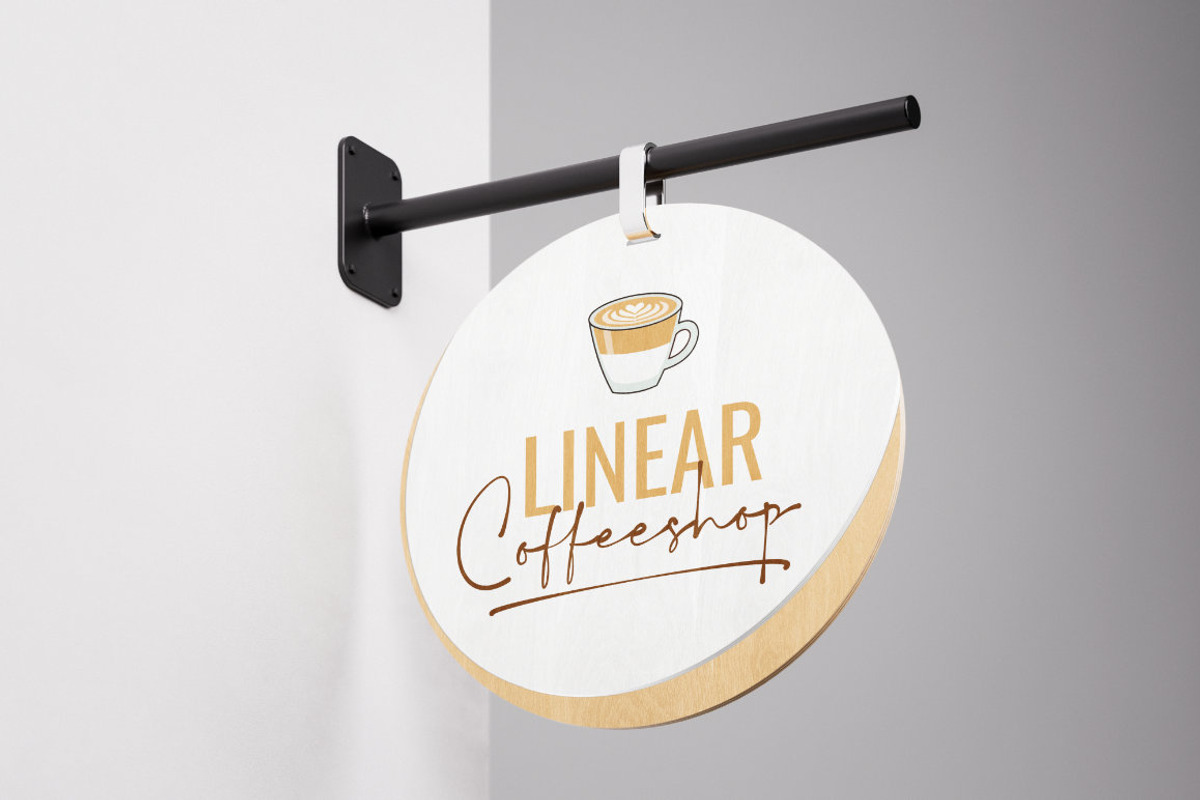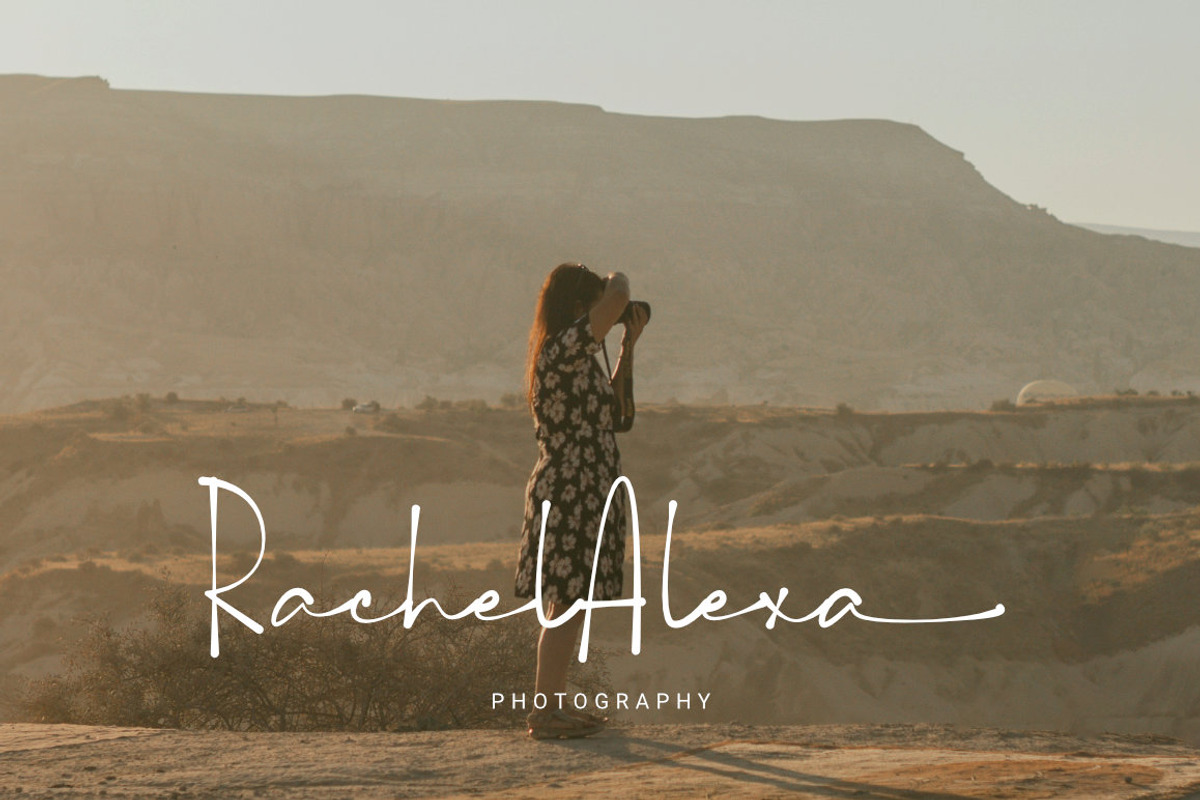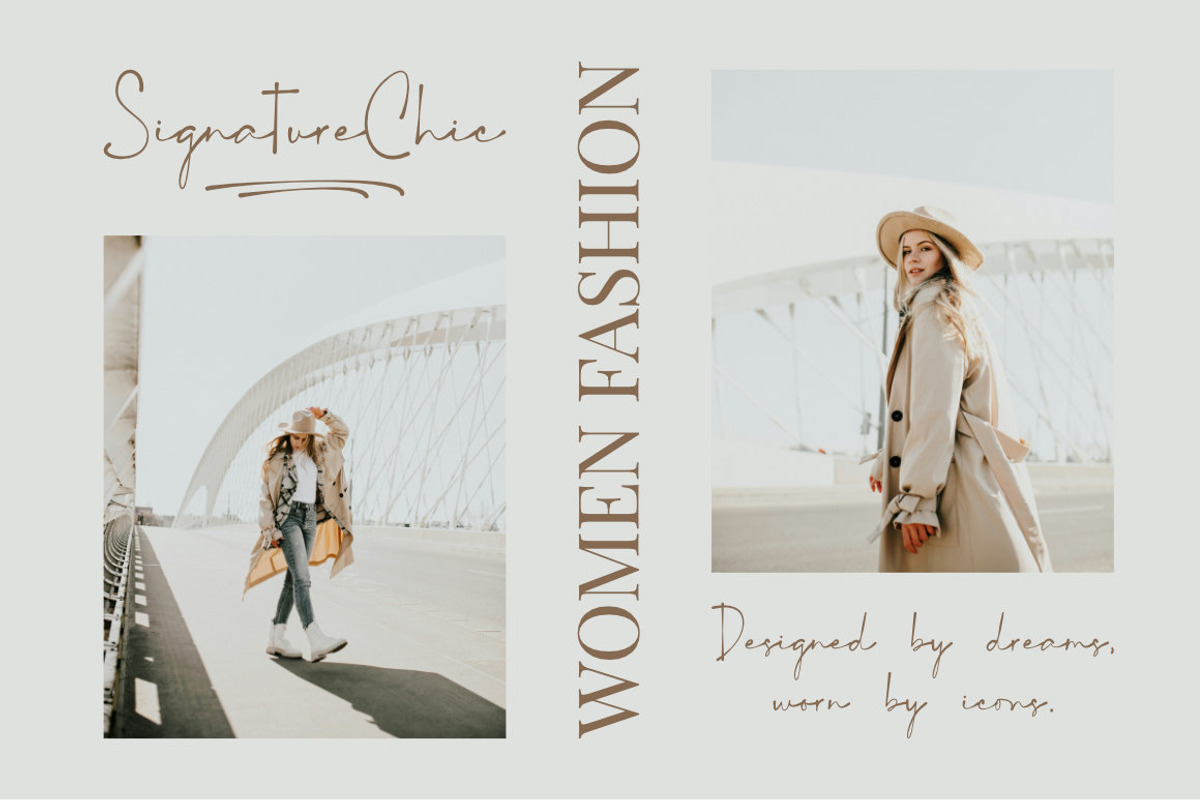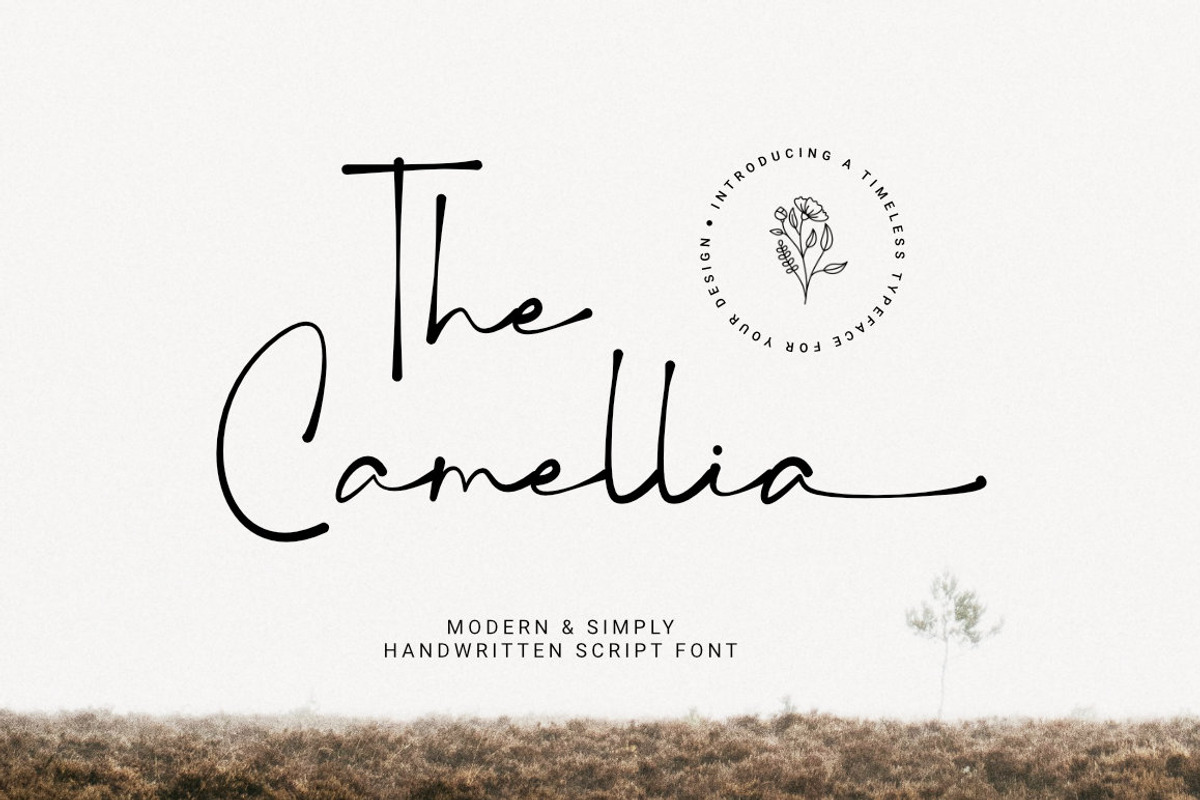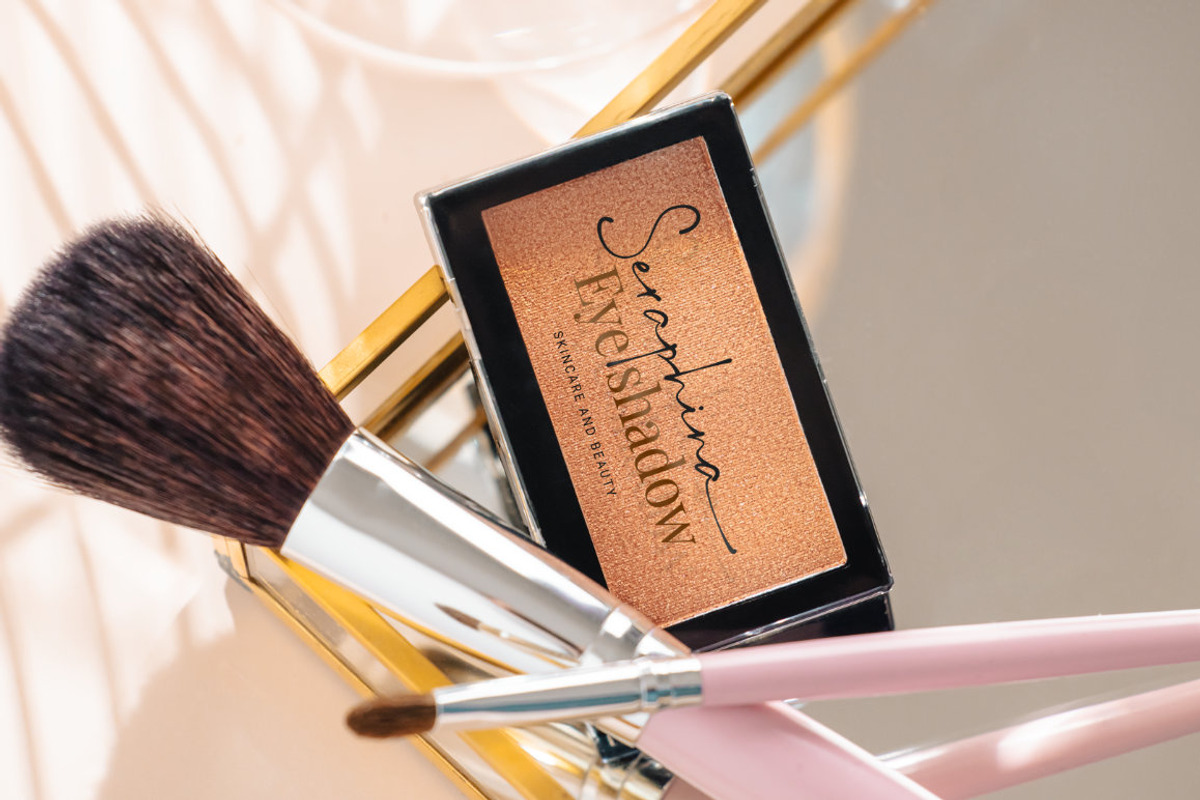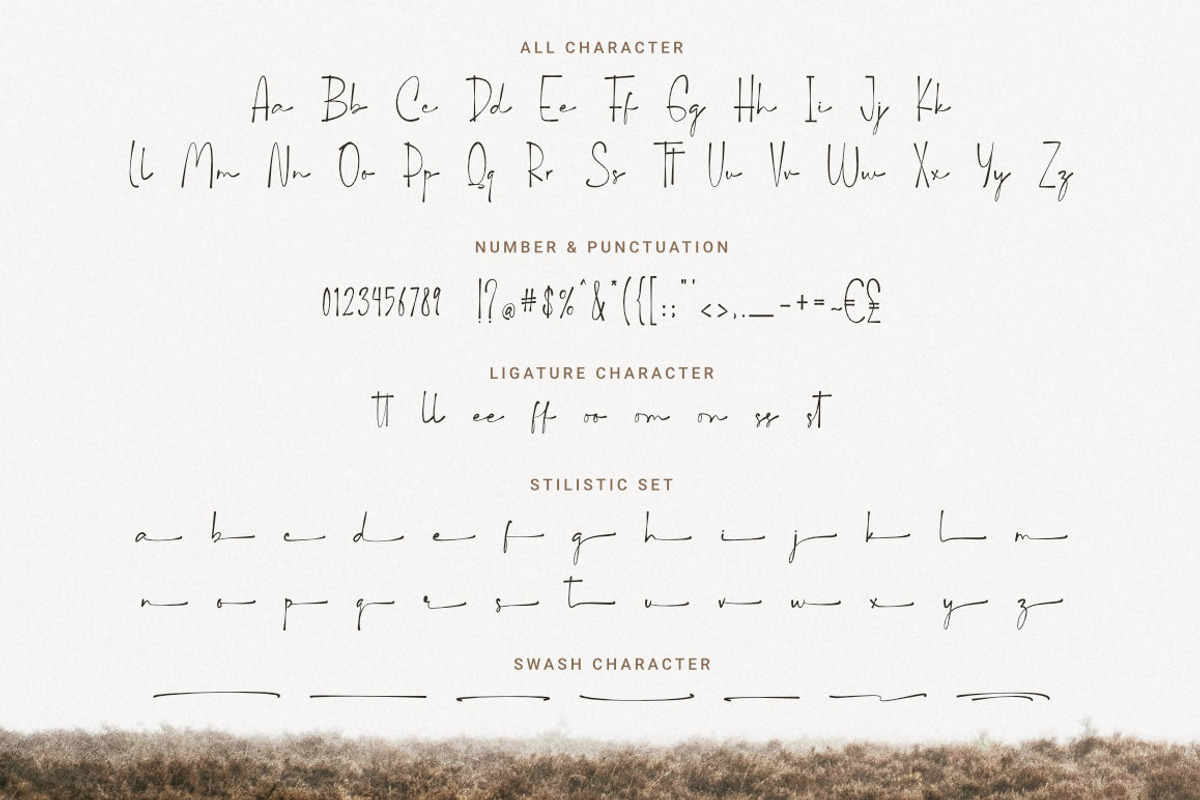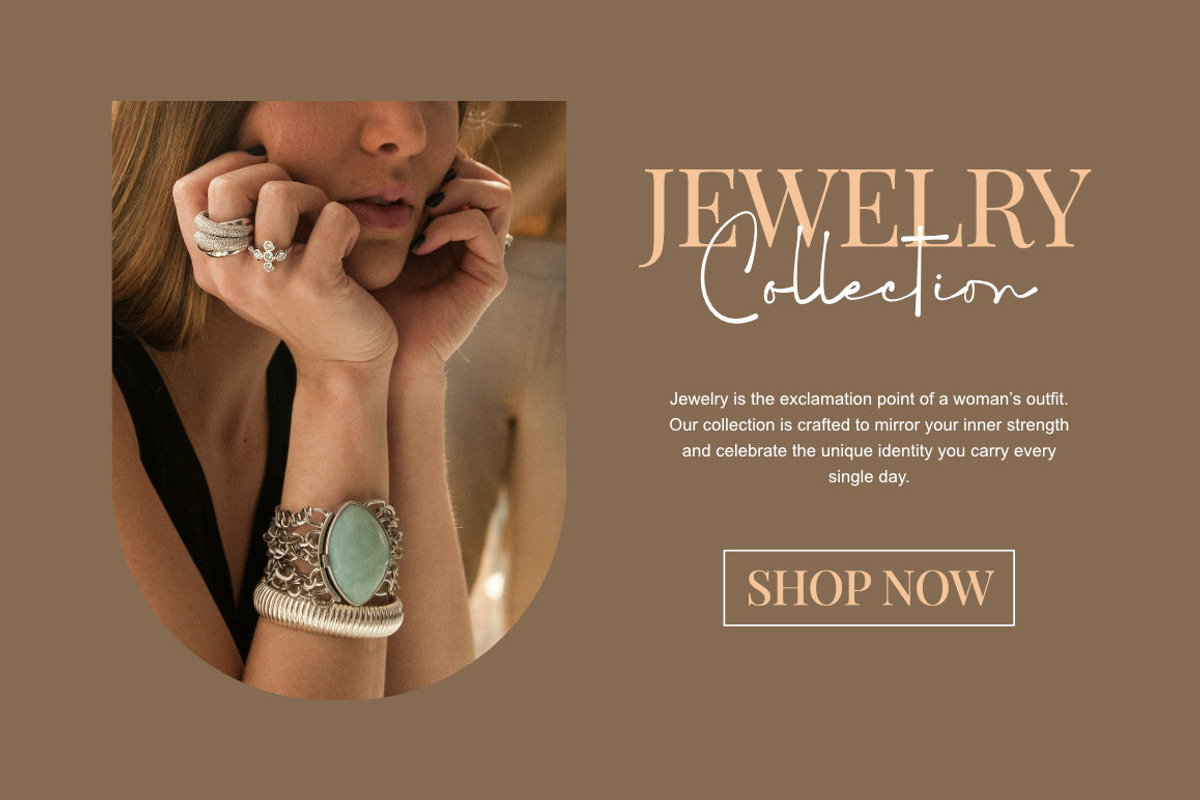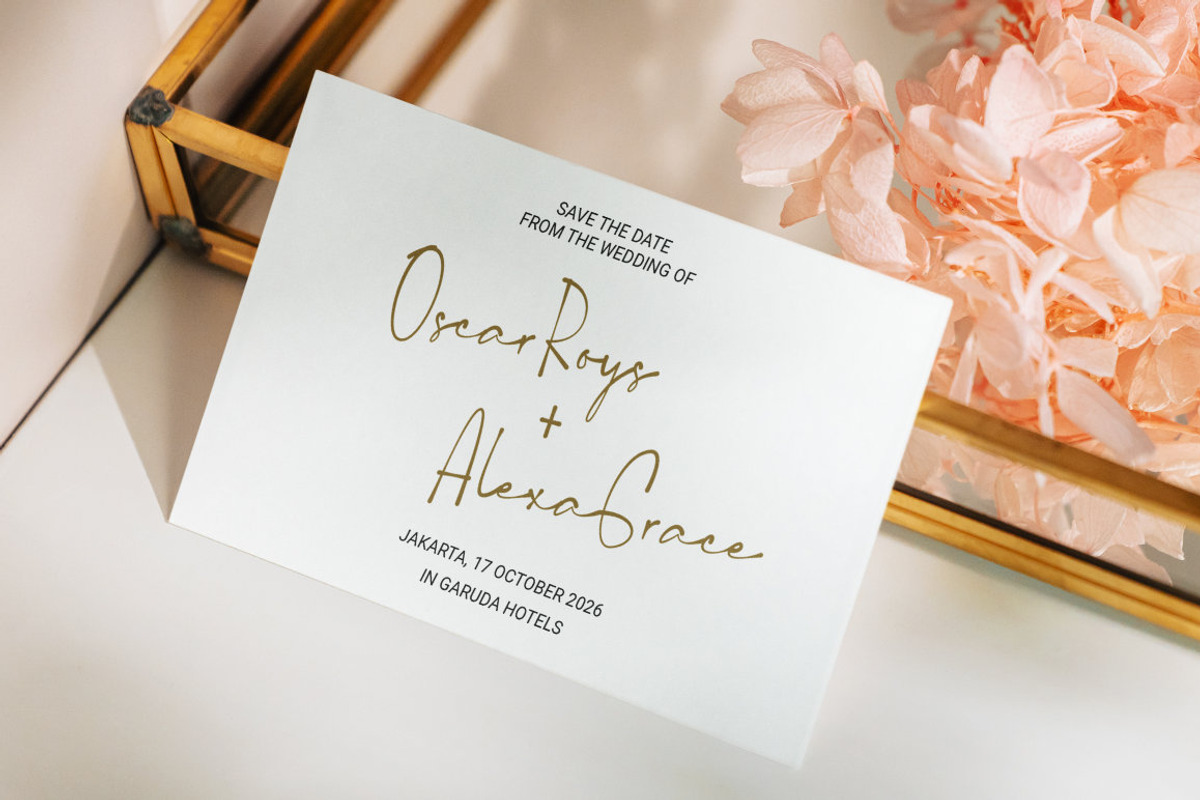
The Camellia - Modern Handwritten
The Camellia font is a modern, handwritten script with an elegant, natural, and flowing style. Designed with a modern touch and feminine character, this font is perfect for branding, logos, social media, quotes, wedding invitations, packaging, and various creative design projects.
This font conveys a warm and aesthetic feel, making it an ideal choice for designers who desire a clean, handwritten look while maintaining an artistic spirit.
- Stlistic Set
- Swash Character
- Support Multilingual